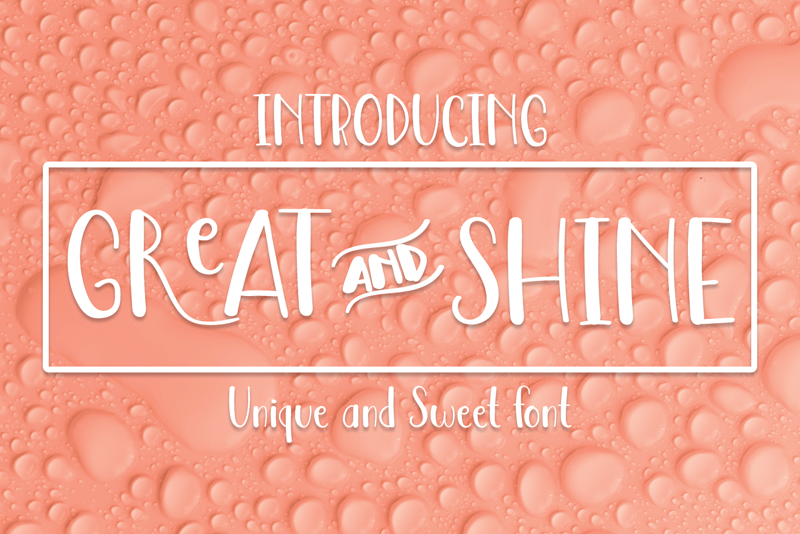
Preview and download Great And Shine Font. Created by Luluk Surotul in Script Various styles with Free for personal use license.
Font name: | Great And Shine |
Author: | Luluk Surotul |
Note by Luluk Surotul | |
Great And Shine is a simple and quirky handwritten font. Add this adaptable and informal handwritten font to each of your creative ideas and notice how they come to life. Attention : Great And Shine handwriting Font is prohibited to use this font for commercial purposes or for profit without the permission of the author/admin, without being known to use this font without permission, will be subject to sanctions 5x the specified price. This font is used only for demos (Demo license) If you want to use this font for commercial use please contact email: elllulukstudio123@gmail.com or click the link below: https://www.creativefabrica.com/product/great-and-shin/ref/761303/ If you want to see more other fonts, please click: https://www.creativefabrica.com/designer/el_hotcig Any donations are very appreciated. Paypal account for donation: https://www.paypal.com/paypalme/luluk783 thanks. |